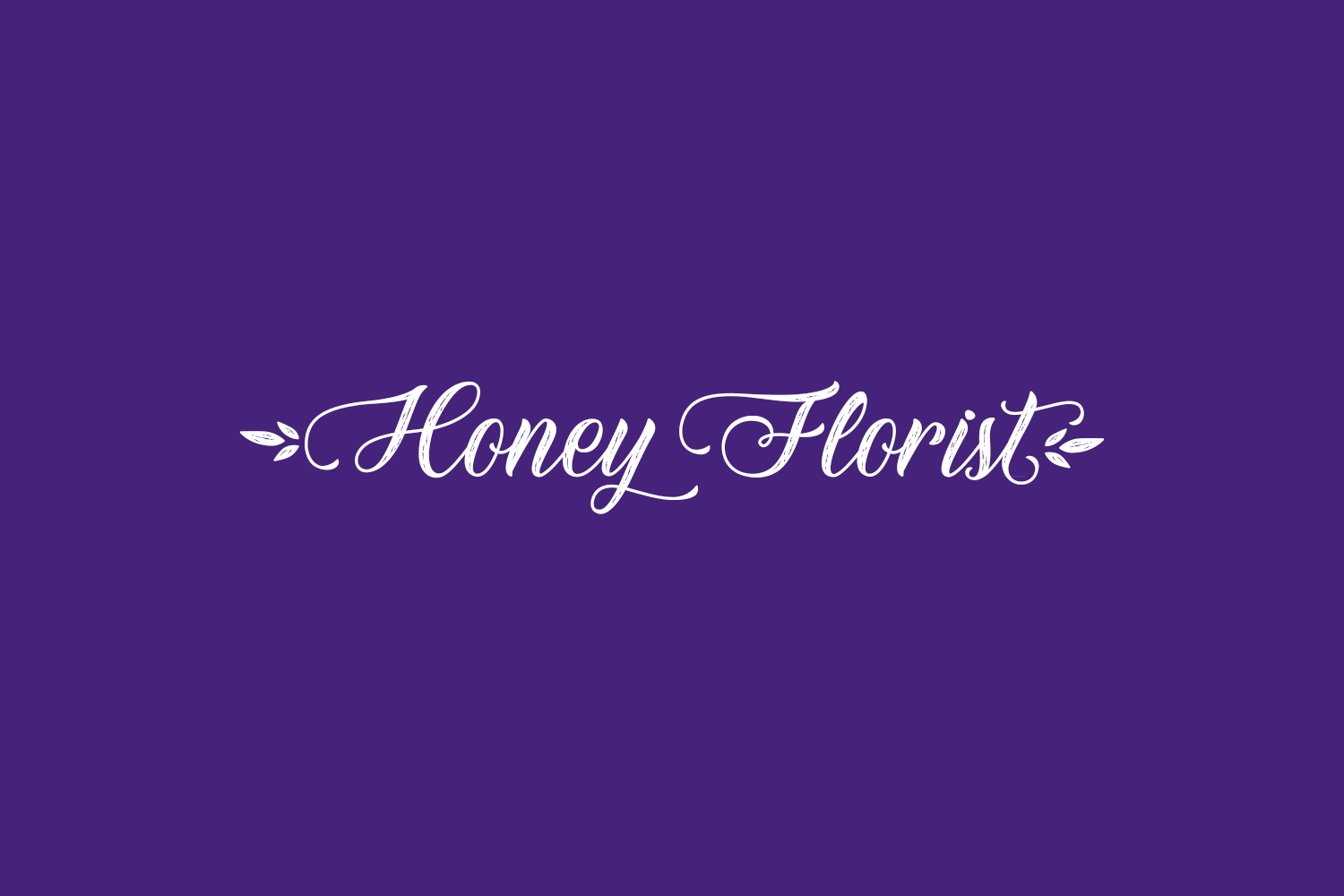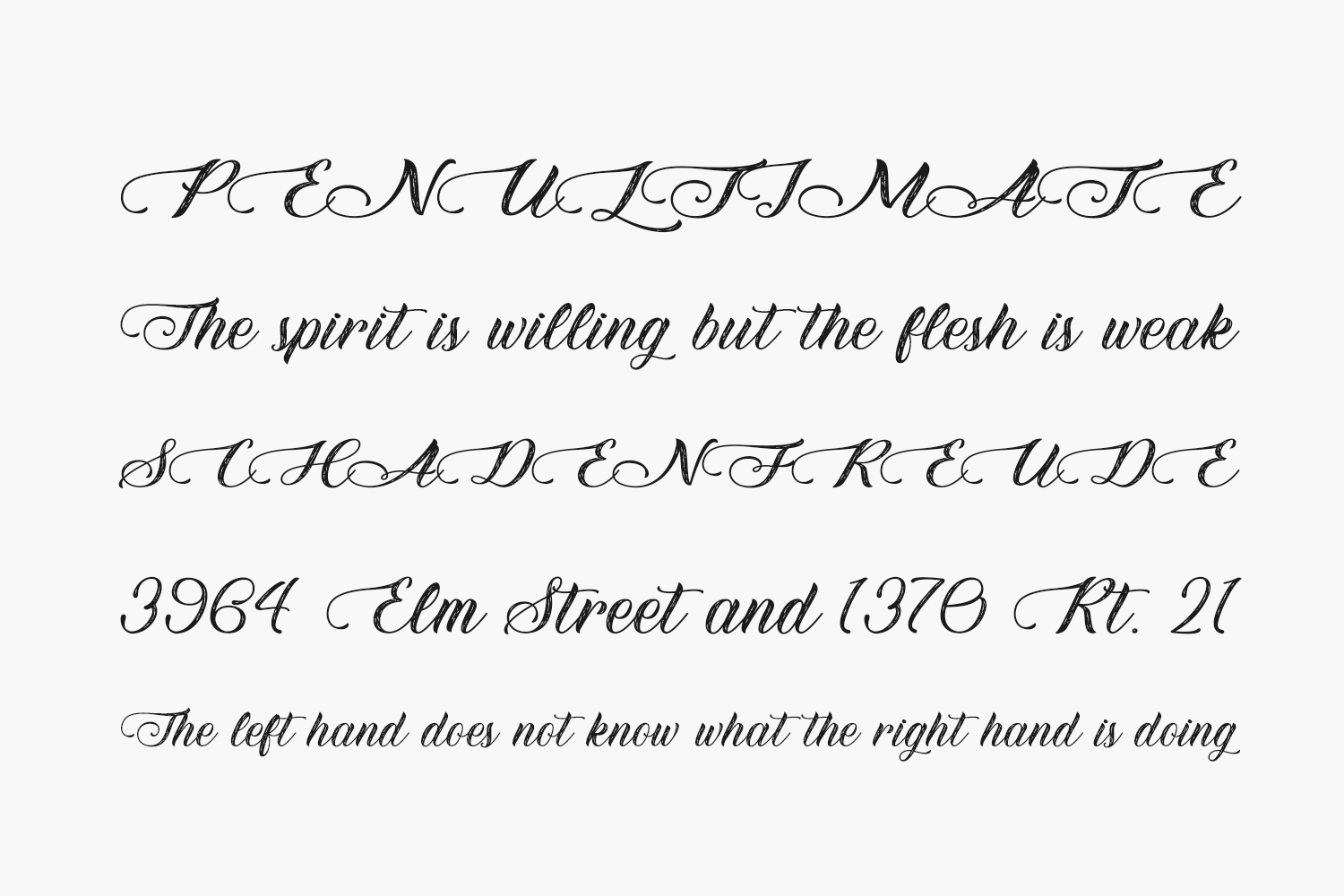
Honey Florist Free Font is a delicate and sweet script font, that looks perfect on logos, name tags, advertising, product packaging, clothing, social media & greeting cards. Honey Florist Free Font was designed by Typhoon Type and is free for personal use only. Please purchase the full version for commercial use.